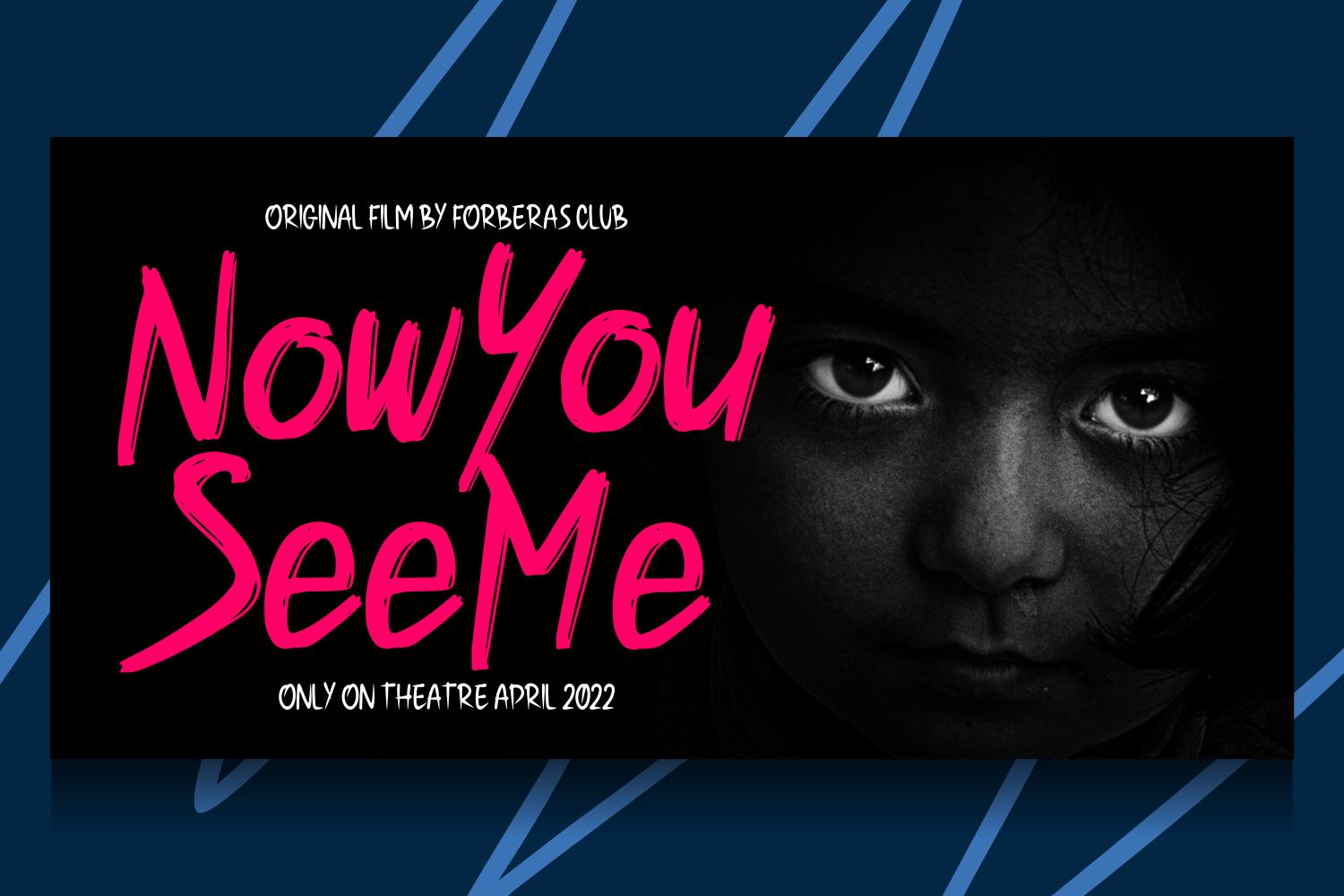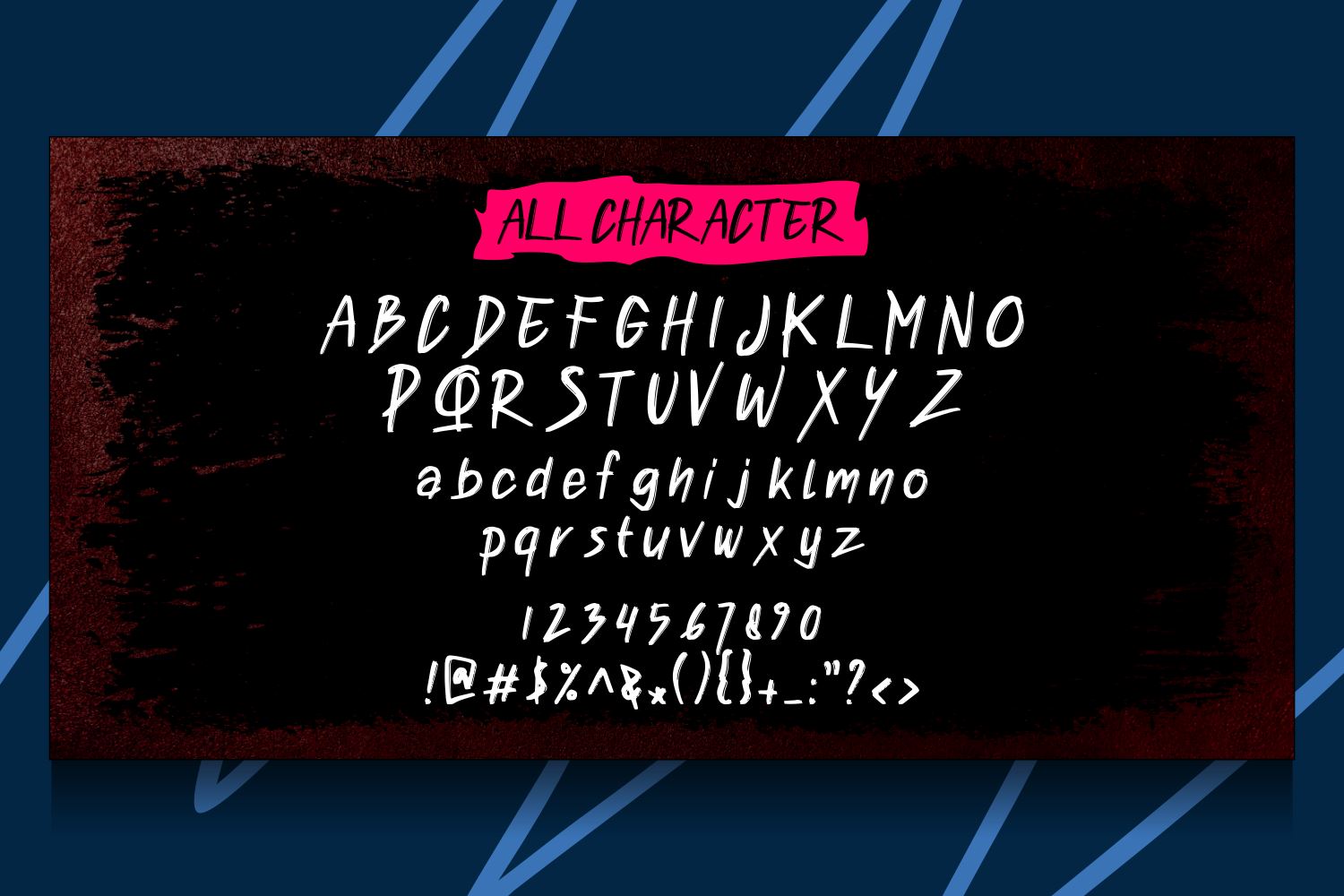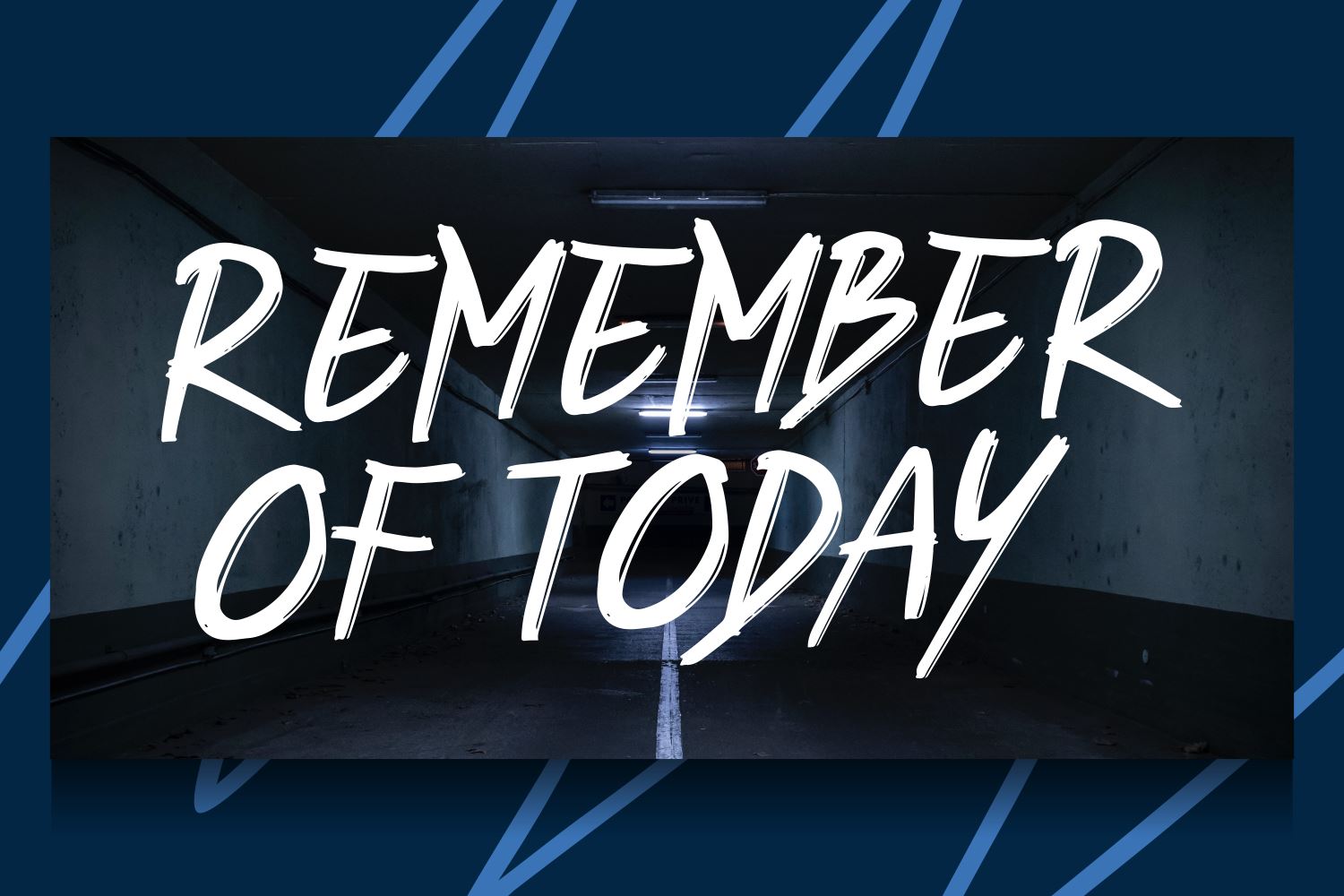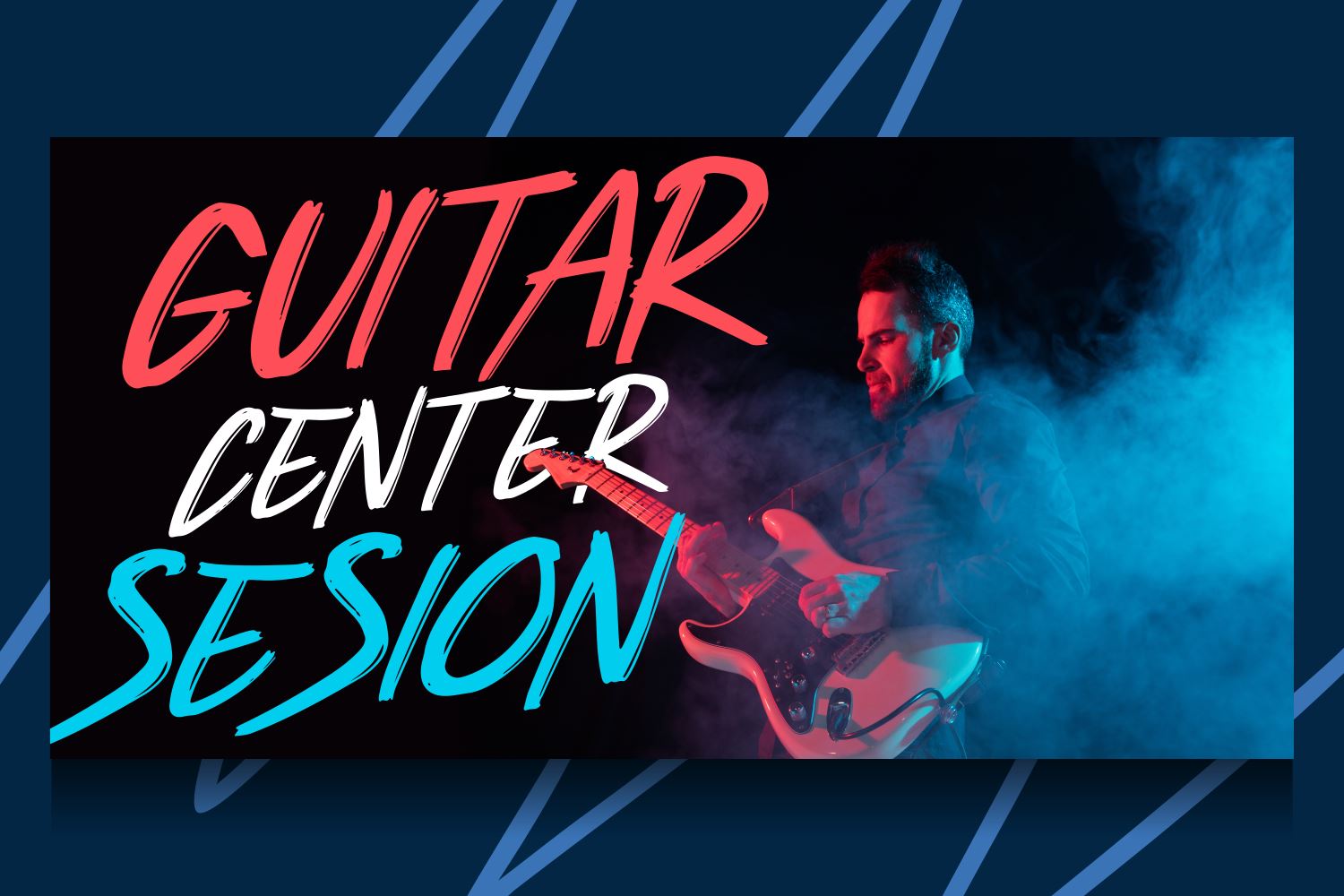
Morepling
About Morepling
Introducing Morepling Font by Forberas Club Morepling is a Modern Handwritten Font. Morepling is perfect for book cover, product packaging, branding project, megazine, social media, wedding, or just used to express words above the background.This font includes TTF and OTF, This font also multilingual support.